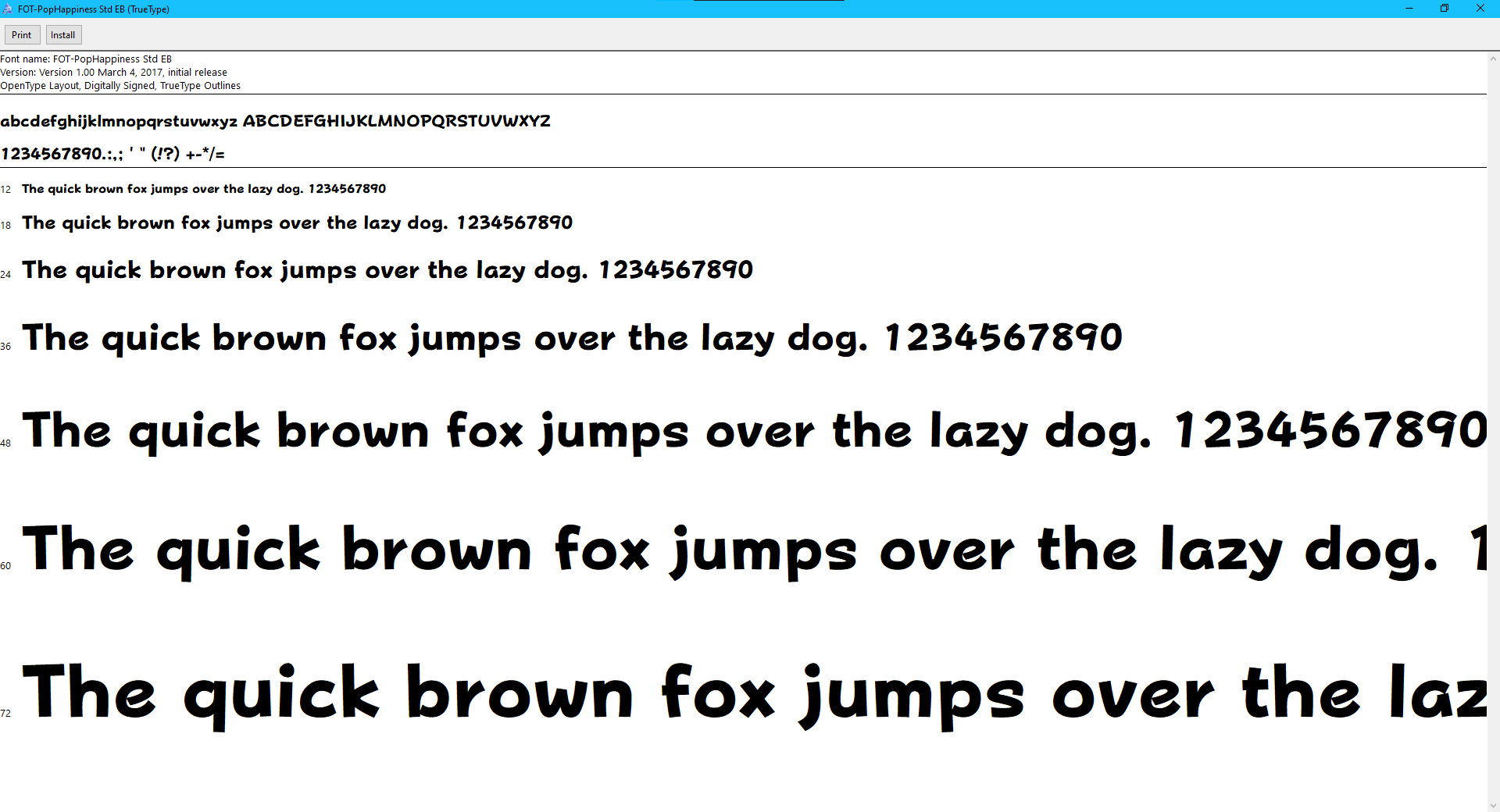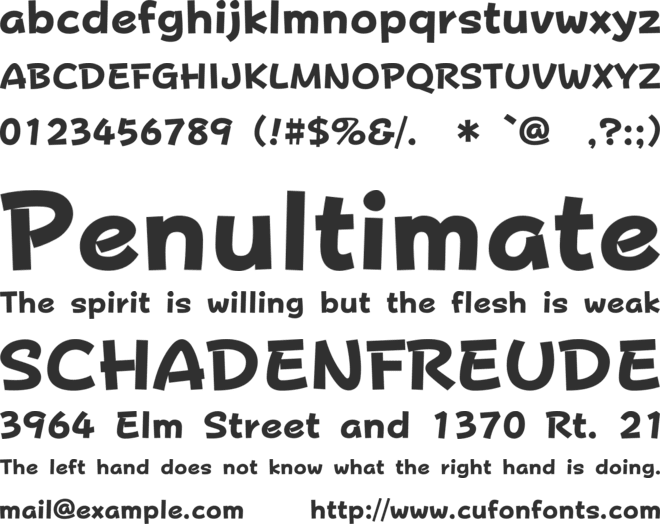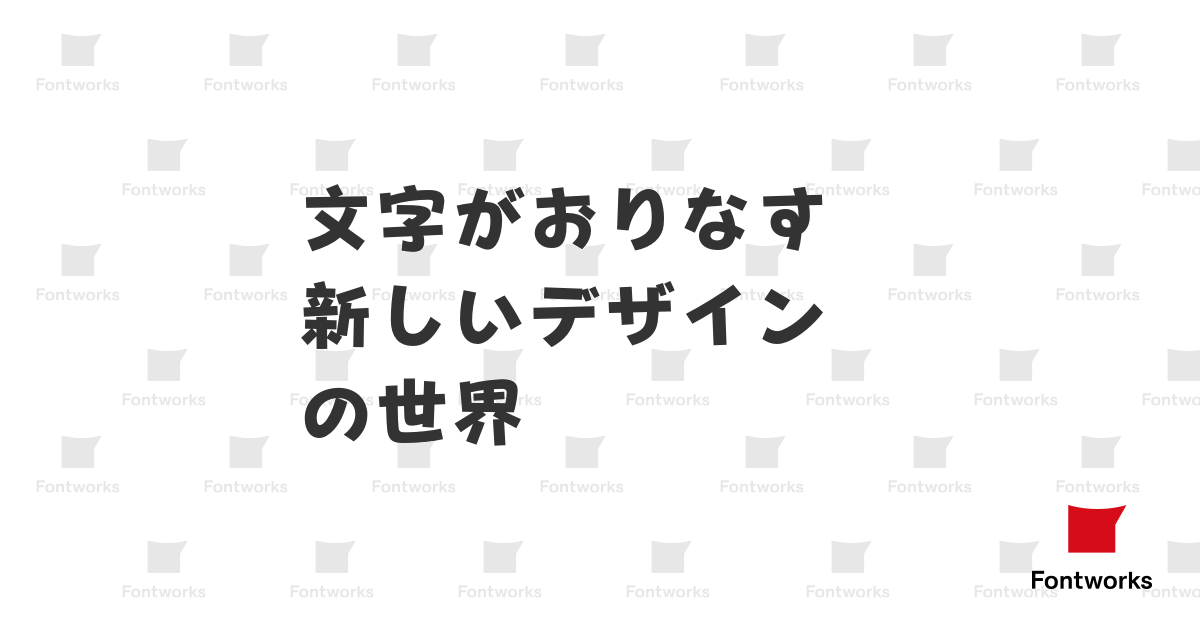
Pop Happiness Font
Pop Happiness Font - Last edited on 14th april 2022. The font used in various super mario games. Created on 14th april 2022. Web search by hot keywords. Web download 7 0 98 0 info: Due its rarity i've decided to make a archive of it.
Last edited on 14th april 2022. Web download 7 0 98 0 info: The font used in various super mario games. Due its rarity i've decided to make a archive of it. Created on 14th april 2022. Web search by hot keywords.
The font used in various super mario games. Last edited on 14th april 2022. Created on 14th april 2022. Due its rarity i've decided to make a archive of it. Web search by hot keywords. Web download 7 0 98 0 info:
Popハッピネス EB Fontworks
Due its rarity i've decided to make a archive of it. Web download 7 0 98 0 info: Web search by hot keywords. Last edited on 14th april 2022. The font used in various super mario games.
Pop Happiness Font [Pokémon Legends Arceus] [Mods]
Web download 7 0 98 0 info: Due its rarity i've decided to make a archive of it. Created on 14th april 2022. Last edited on 14th april 2022. The font used in various super mario games.
Last edited on 14th april 2022. Created on 14th april 2022. Web download 7 0 98 0 info: Due its rarity i've decided to make a archive of it. The font used in various super mario games.
(PopHappiness) Super Mario Sunshine Text Font by wingedyoshi14 on
Created on 14th april 2022. Last edited on 14th april 2022. Due its rarity i've decided to make a archive of it. The font used in various super mario games. Web search by hot keywords.
Web download 7 0 98 0 info: Created on 14th april 2022. Web search by hot keywords. The font used in various super mario games. Last edited on 14th april 2022.
Pop Happiness EB Fontworks
Web search by hot keywords. Web download 7 0 98 0 info: The font used in various super mario games. Due its rarity i've decided to make a archive of it. Created on 14th april 2022.
Pop Happiness Font [Pokémon Legends Arceus] [Mods]
Web search by hot keywords. The font used in various super mario games. Created on 14th april 2022. Due its rarity i've decided to make a archive of it. Last edited on 14th april 2022.
The font used in various super mario games. Due its rarity i've decided to make a archive of it. Created on 14th april 2022. Web search by hot keywords. Last edited on 14th april 2022.
Created on 14th april 2022. The font used in various super mario games. Web search by hot keywords. Web download 7 0 98 0 info: